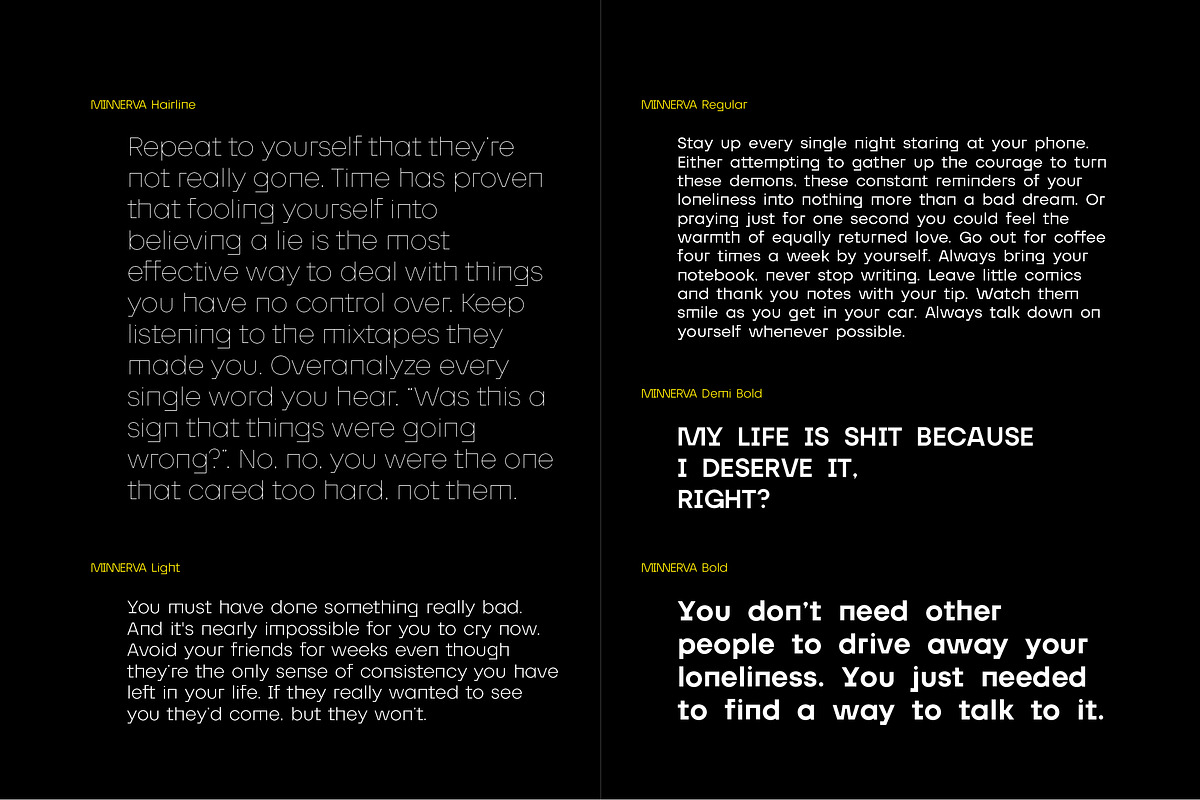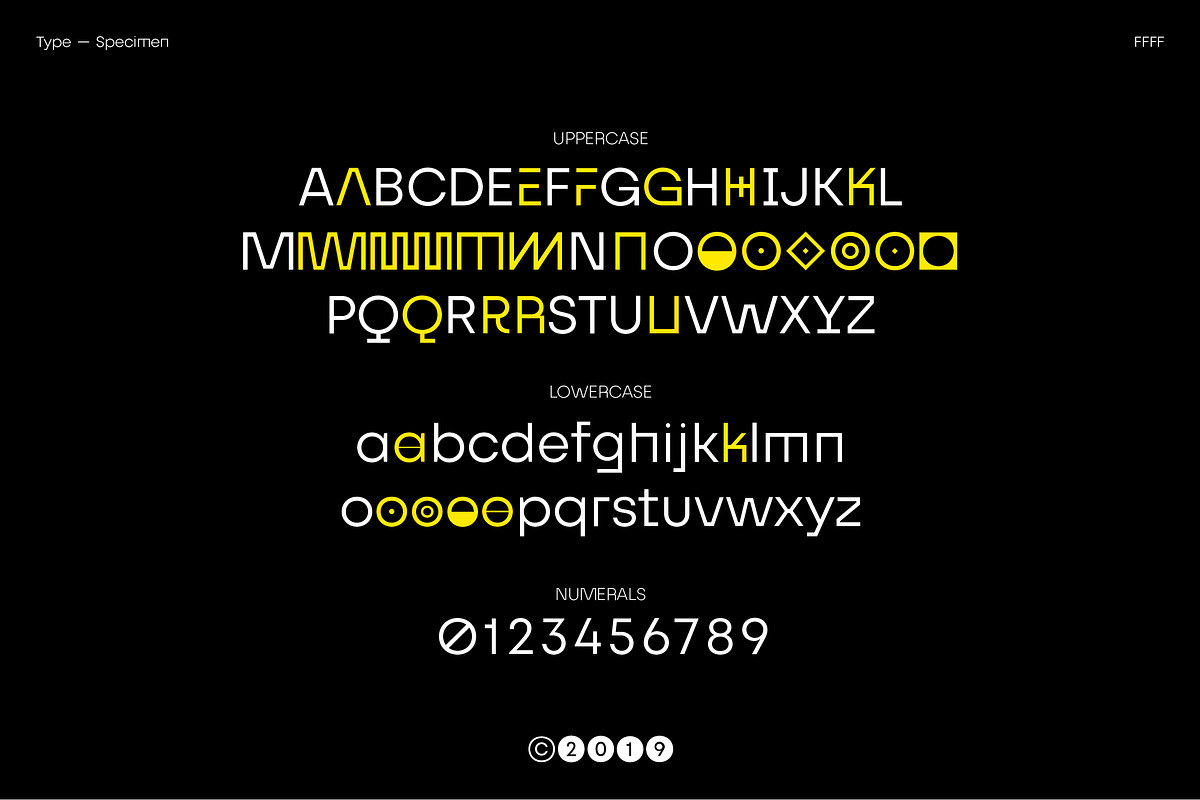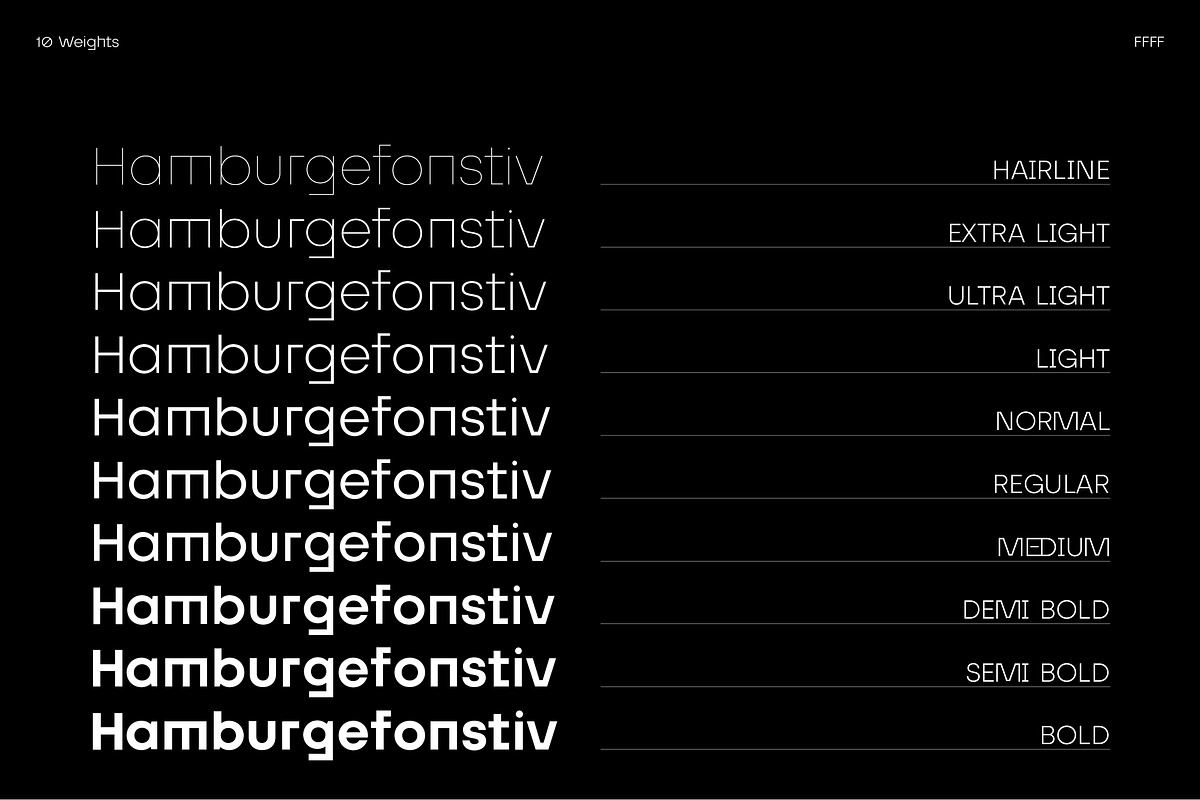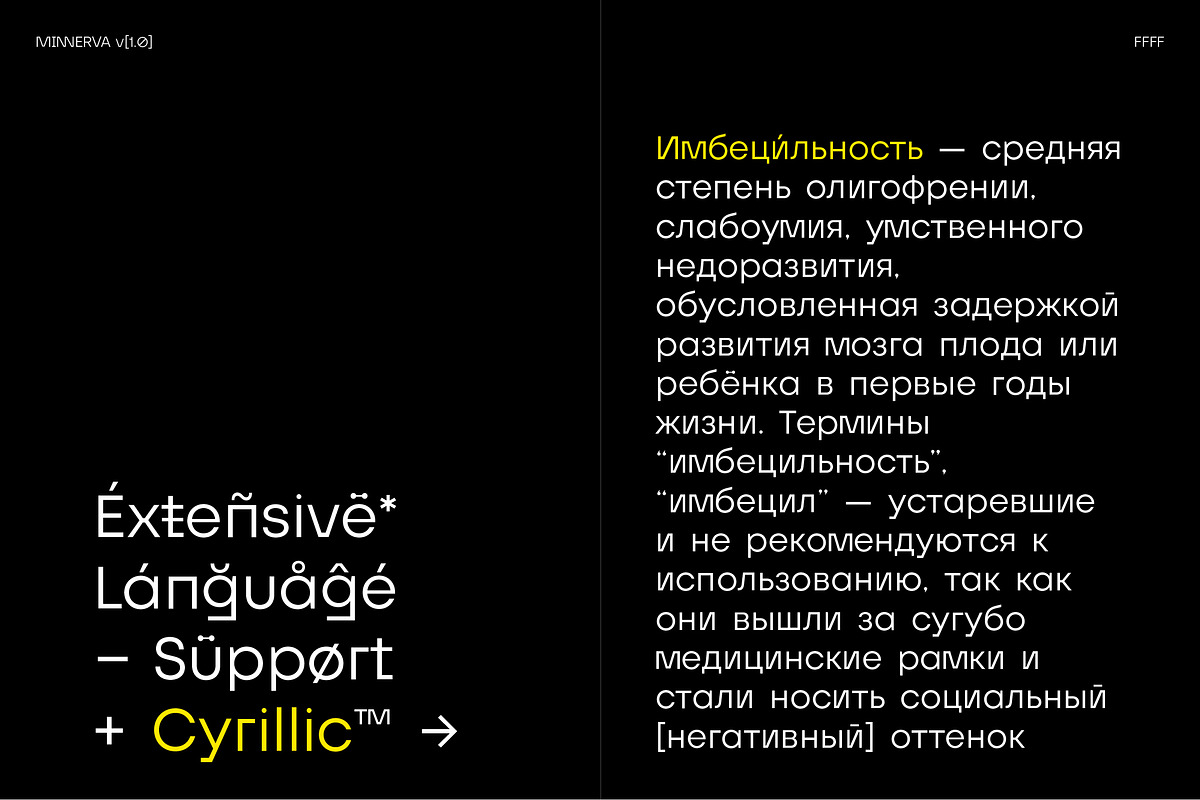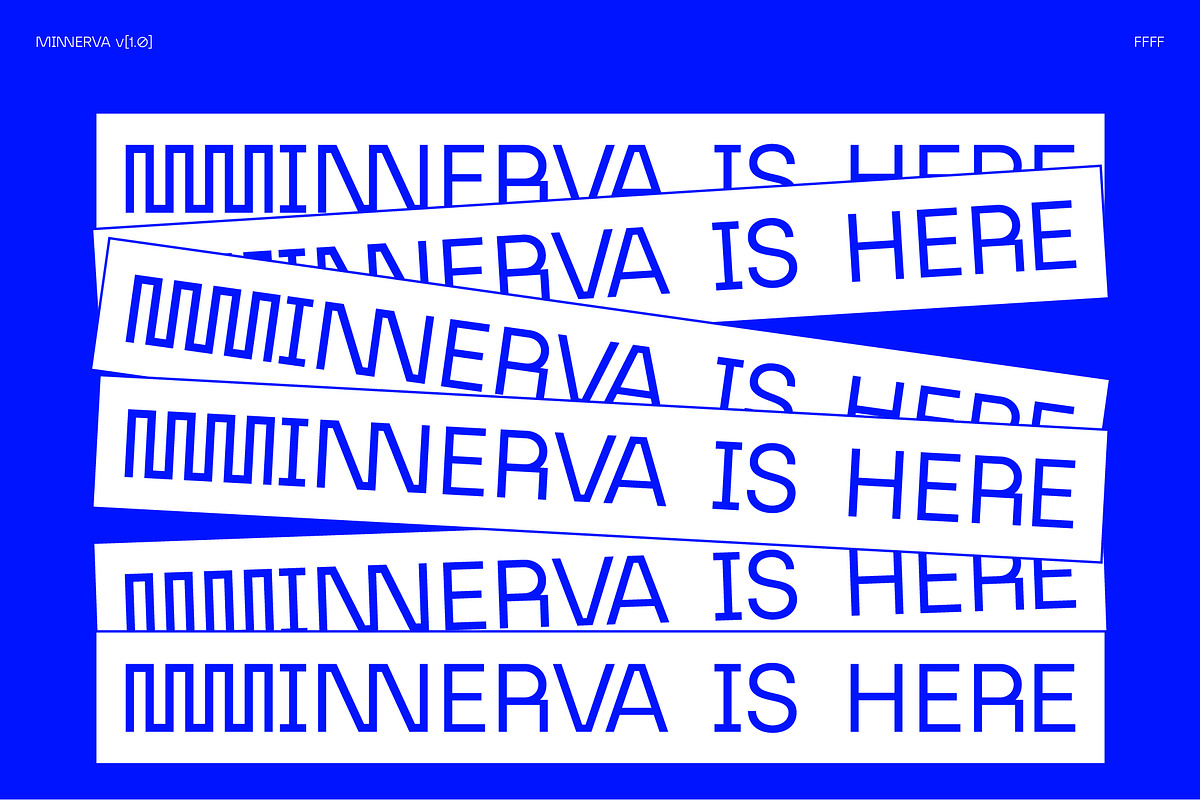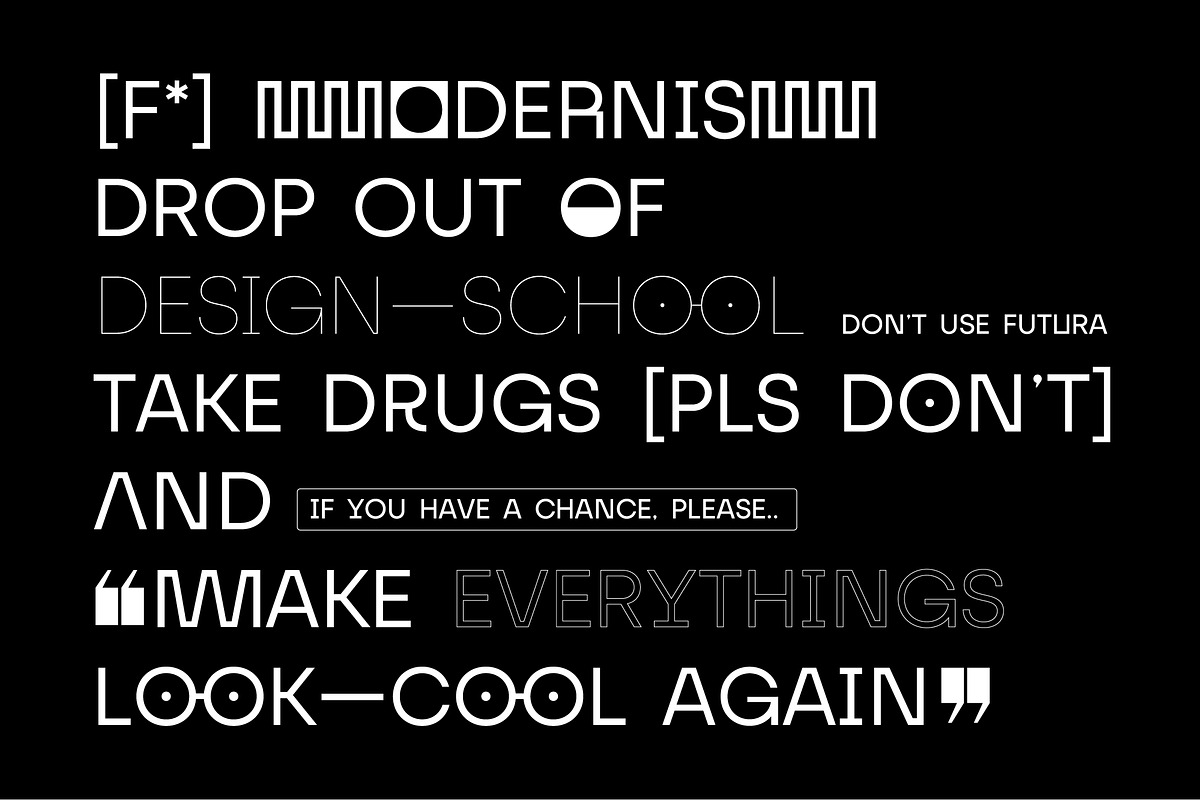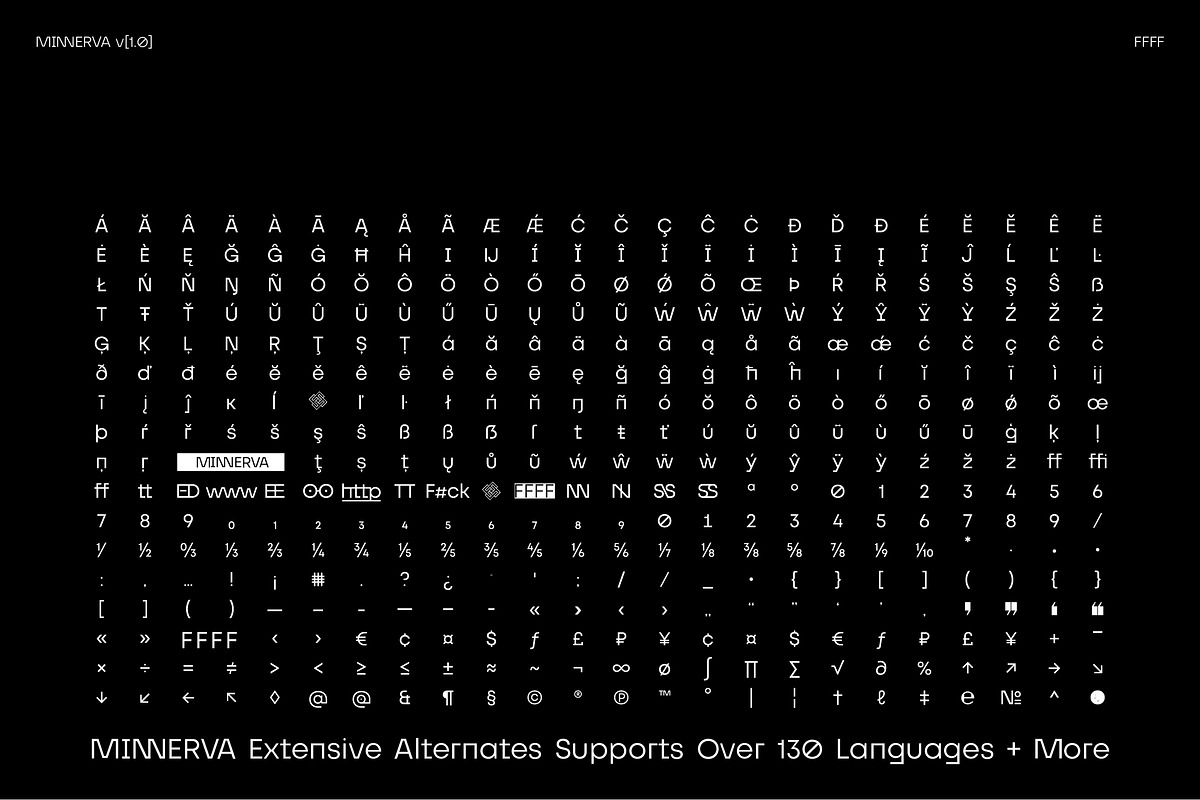
Mnnerva is the first experiment of font family from FFFF. FFFF stand for Font Follow Funktion Foundry, an experimental department by Harmnessless Type, FYI.
With a Geometric skeletons and proportions that are weirder than a typical Geometric Sans. Structurally this creates fantastic madness and balance at the same time for both display and text use. Minnerva is a (idk) geometric sans serif or whatever you named it consisting of 10 weights ranging from Hairline to Bold are provided with enough difference in weight to give appropriate hierarchy. Optical adjustment have been made to ensure each weight can sit next to each other. It supports Extended Latin, Cyrillic and Greek —moooore than 130 languages all together.
Minnerva comes with a range of OpenType features— including tabular figures, advanced typographic features such as alternate characters, ligatures, discretionary ligatures, fractions, case-sensitive forms, superscripts, subscripts etc.But the challenge is Minnerva isn’t versatile and isn’t easy to confront any graphic design needs.
Lasting for an immeasurably or indefinitely long period of time; Minnerva is here.